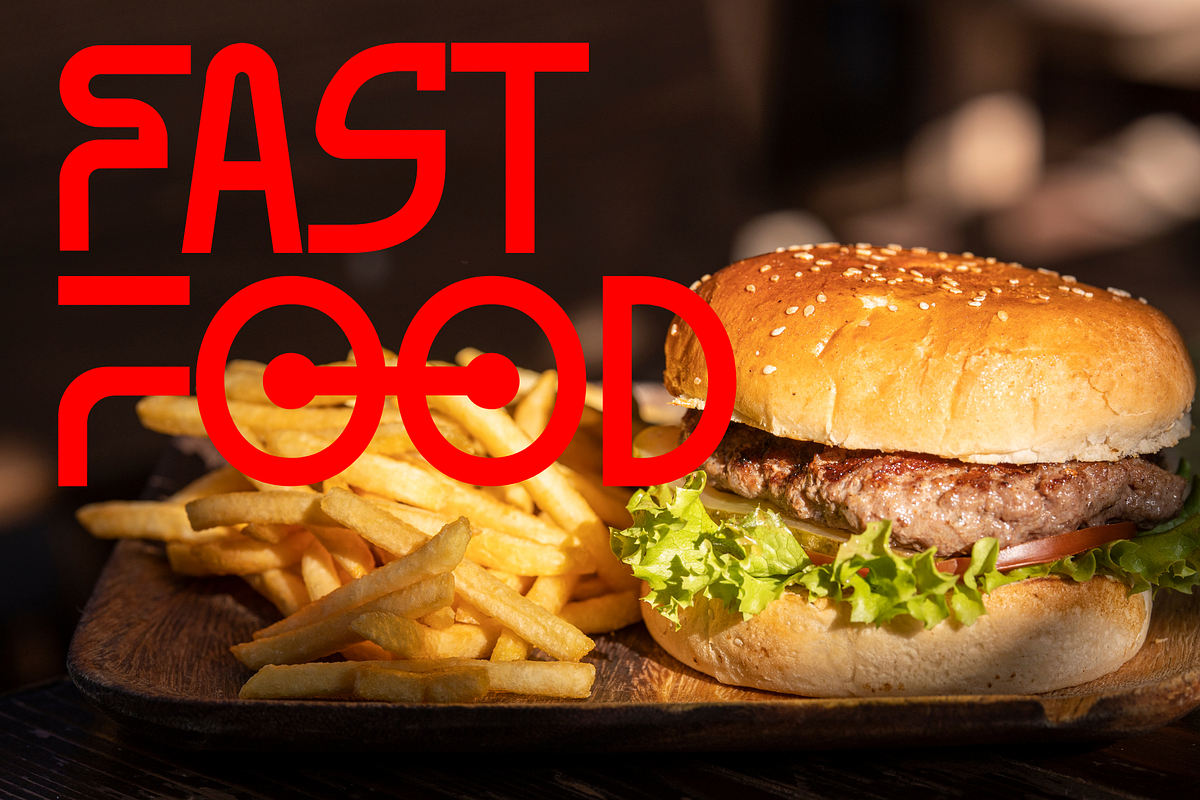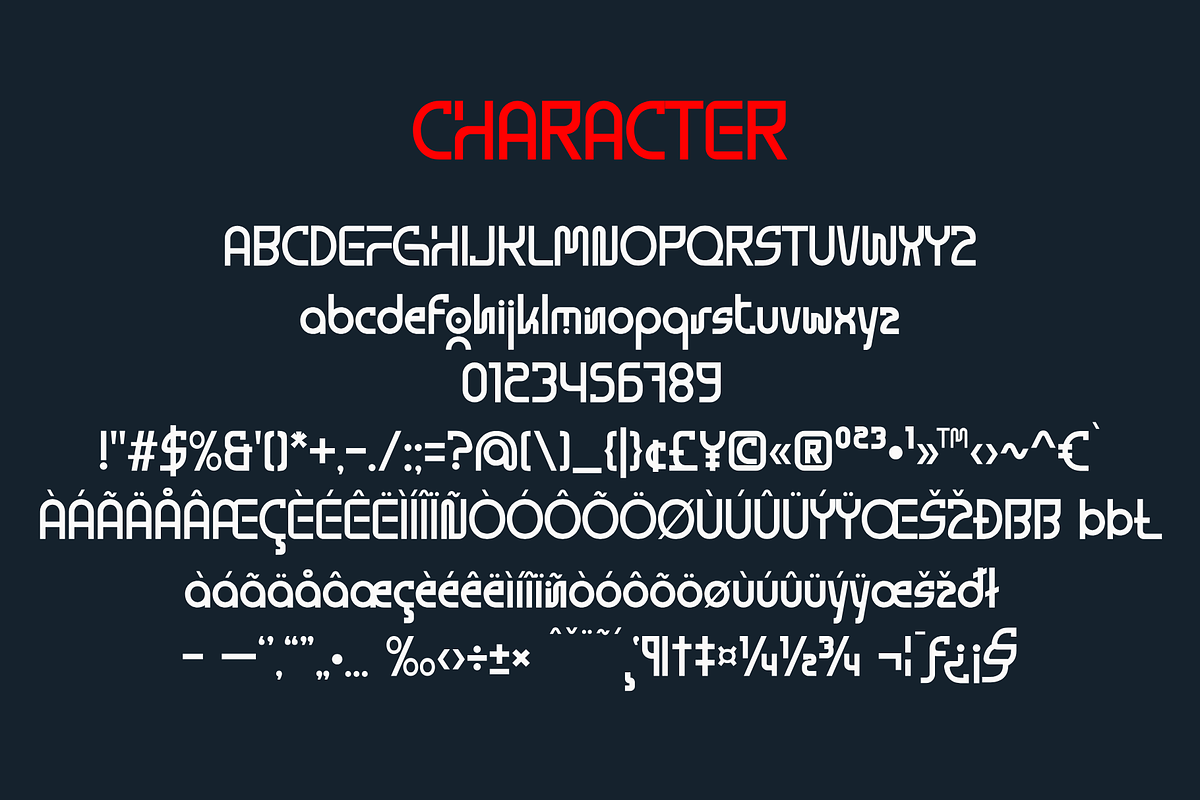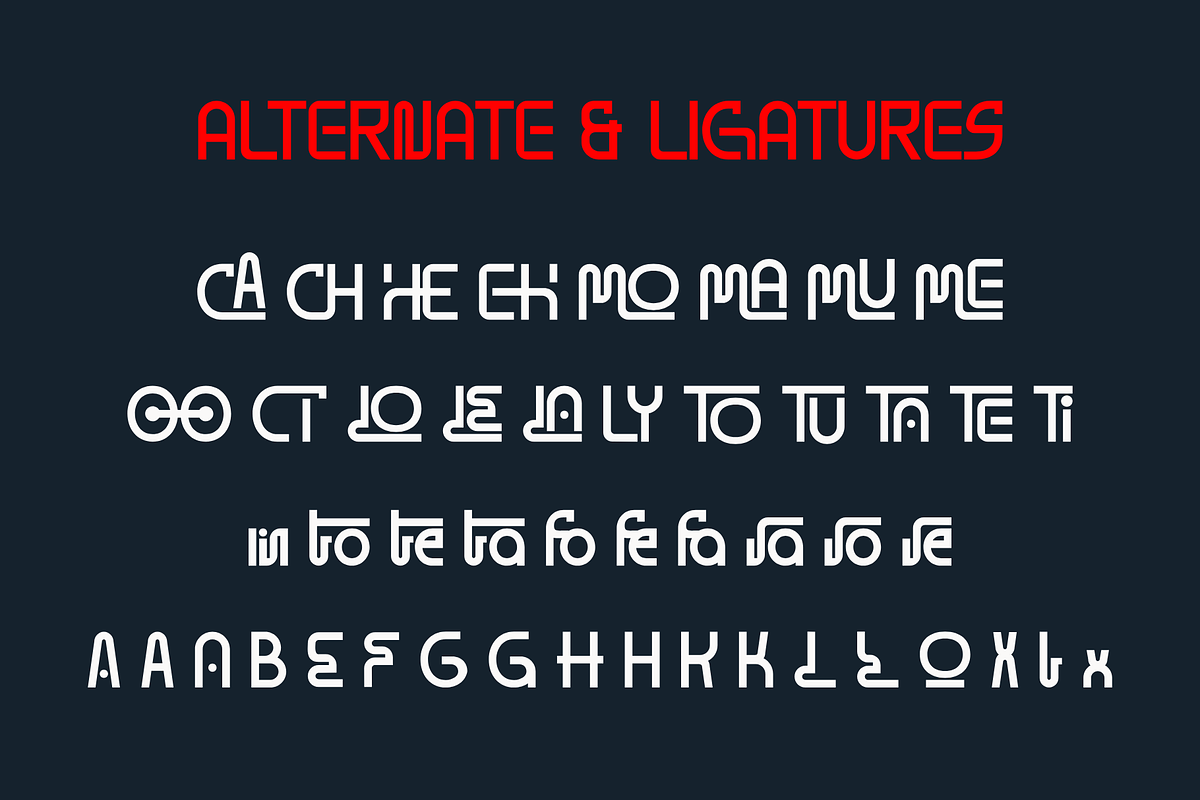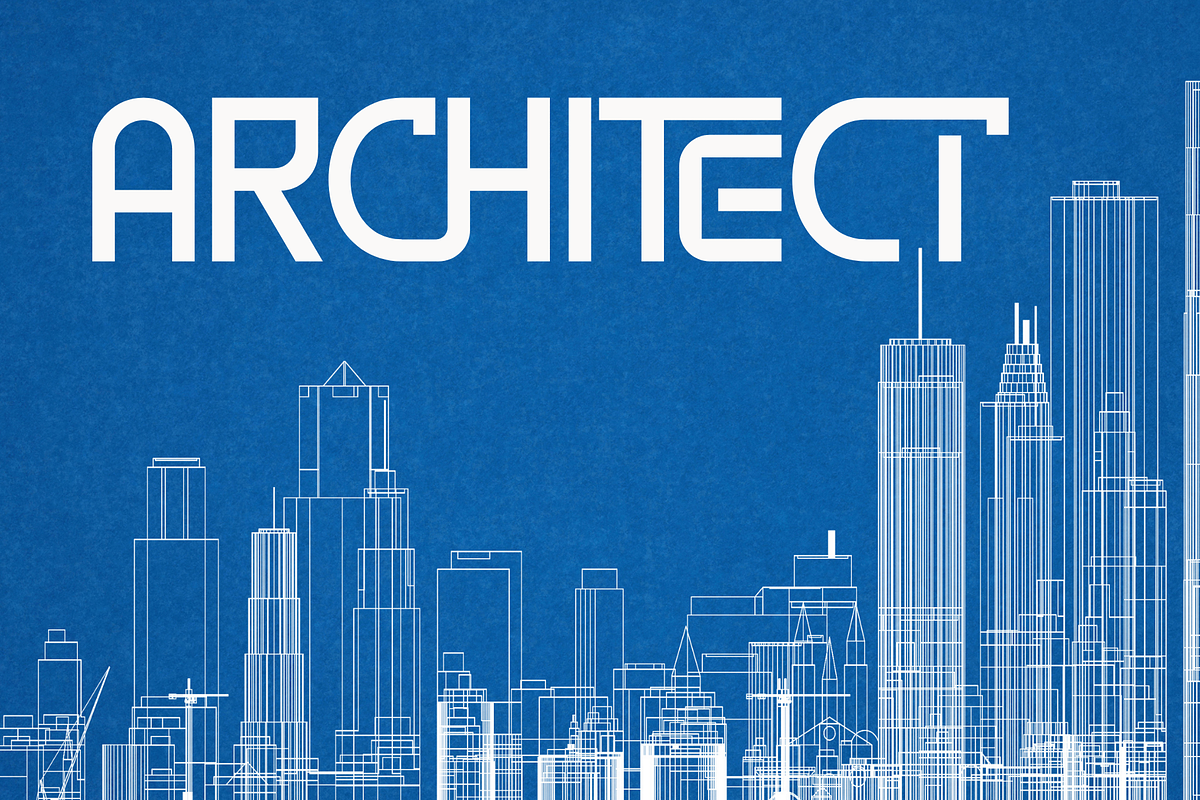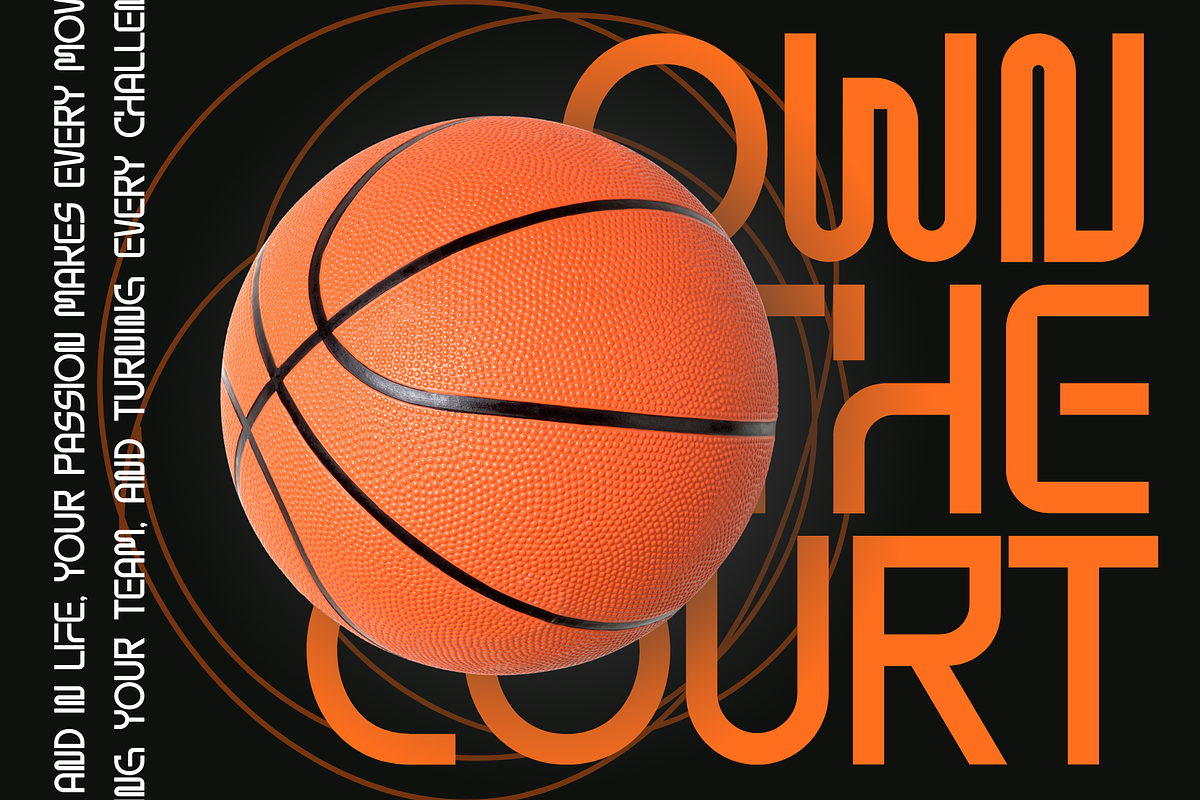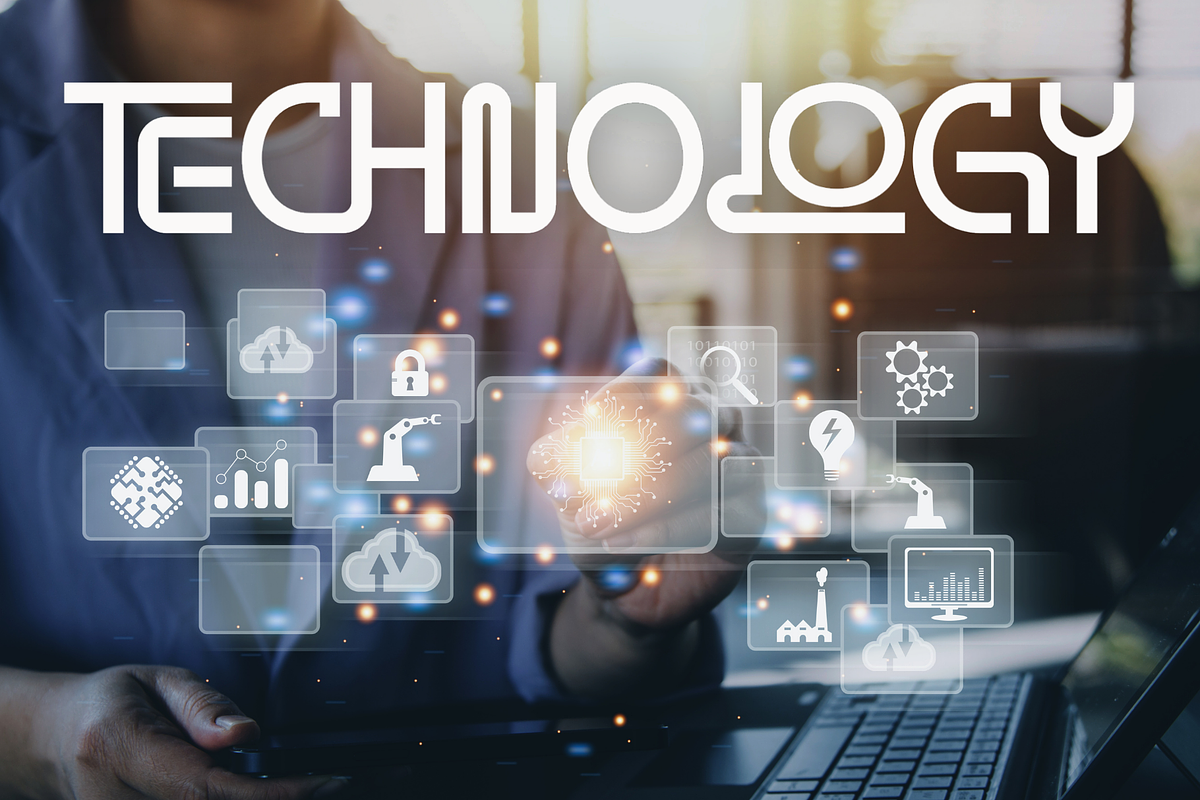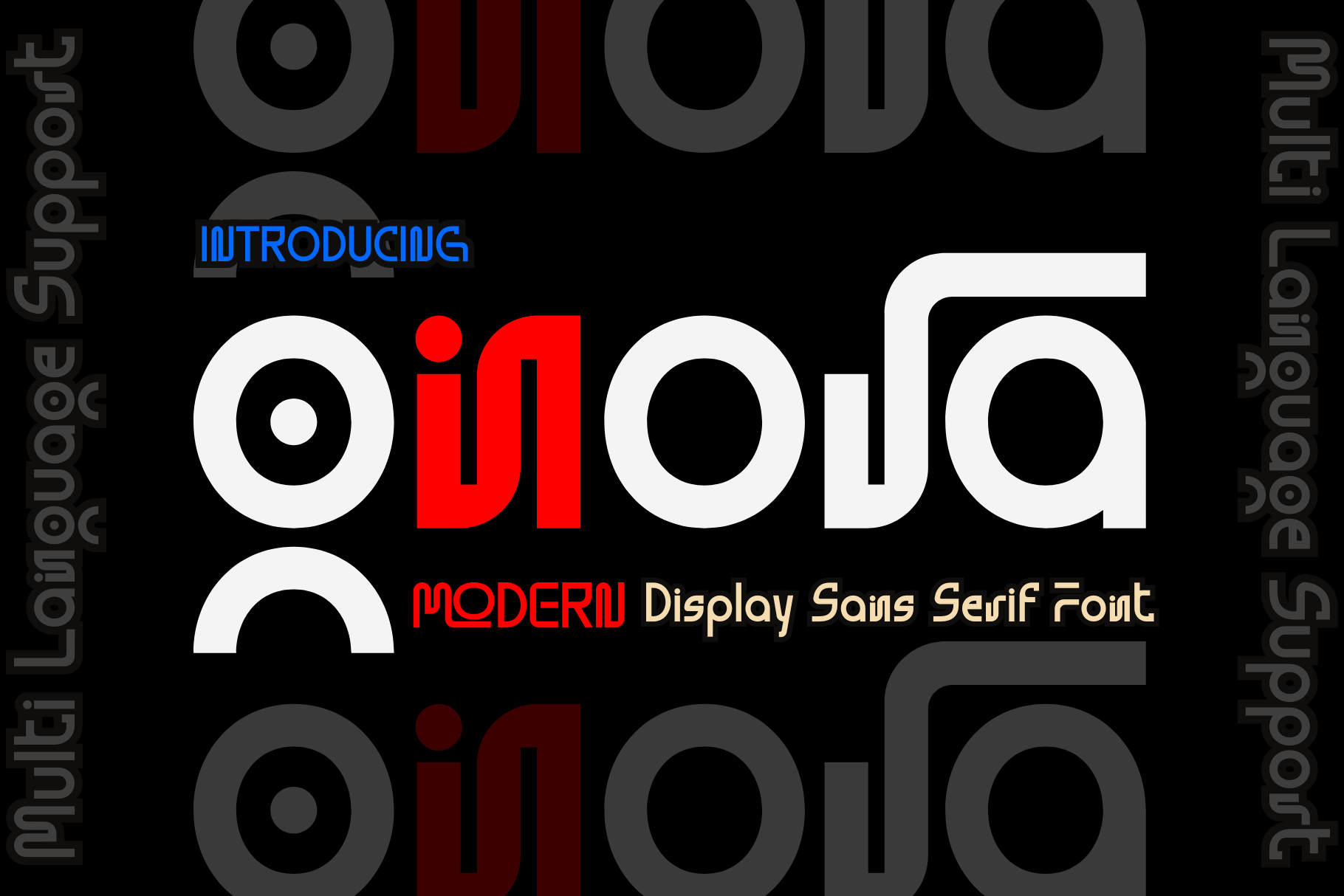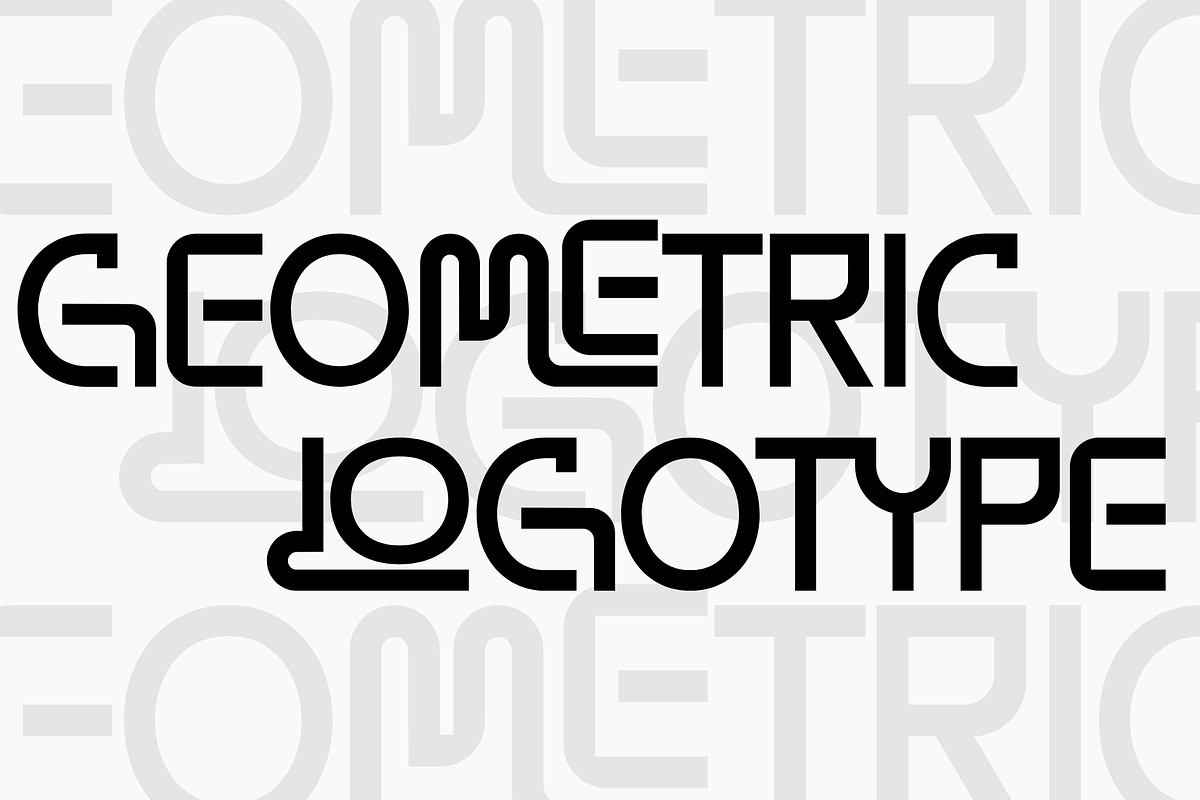
Gnora is a Geometric Sans Serif Font
Gnora is a Geometric Logo Sans serif font. It embodies playfulness and authenticity and is the perfect choice for all your favorite projects, including blog posts, logos, branding, ads, invitations, greeting cards, planners, photo albums, decorations, and more. Add it to any of your designs, and enjoy the results!